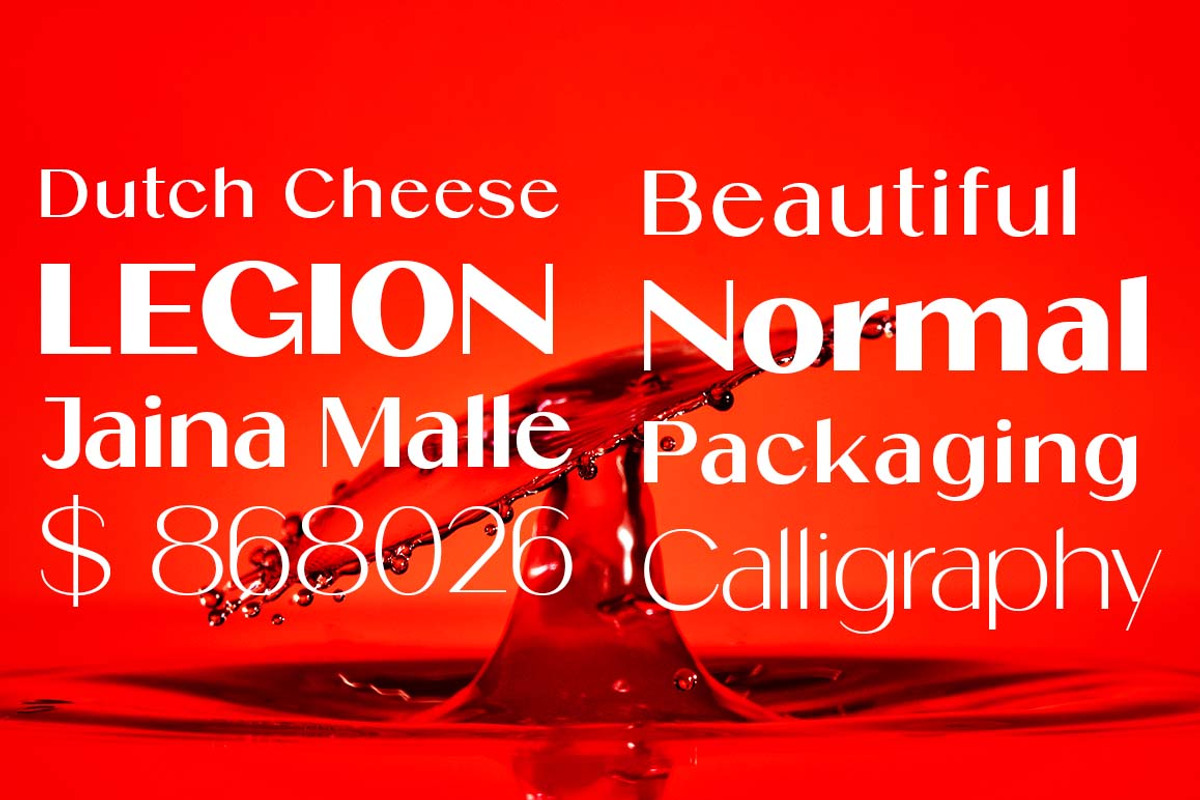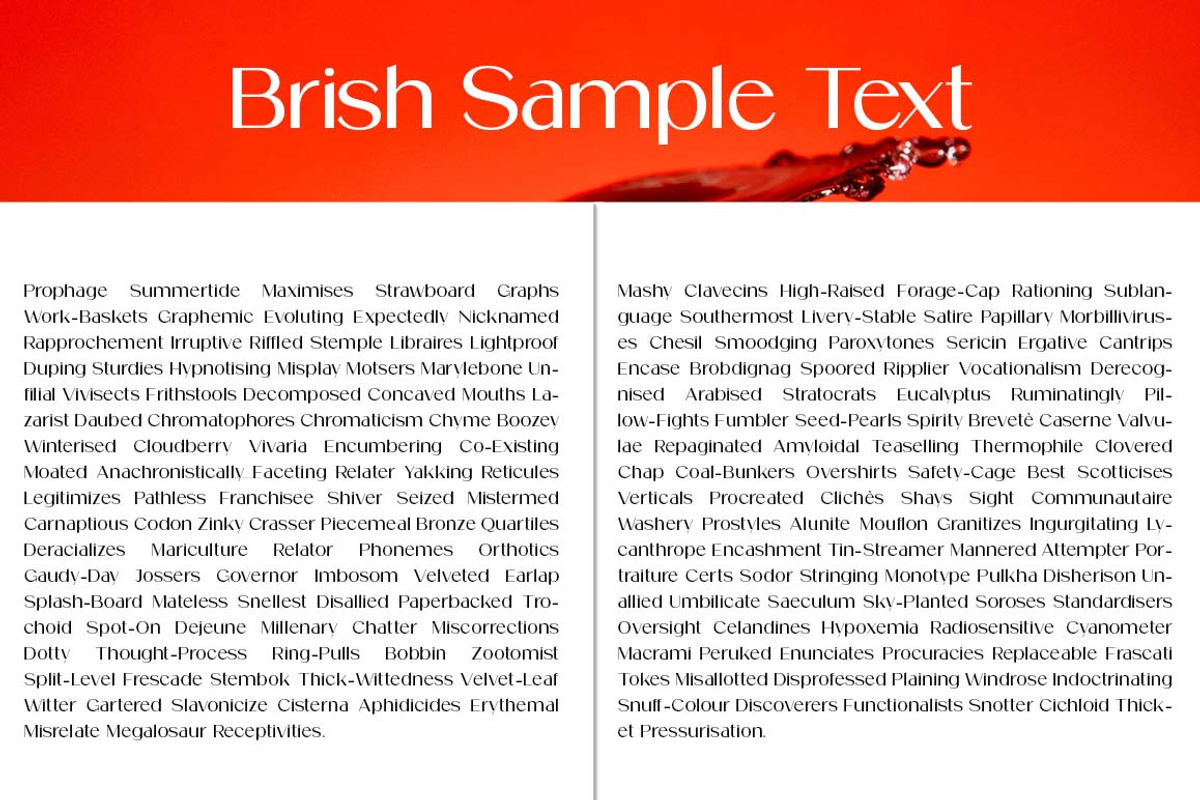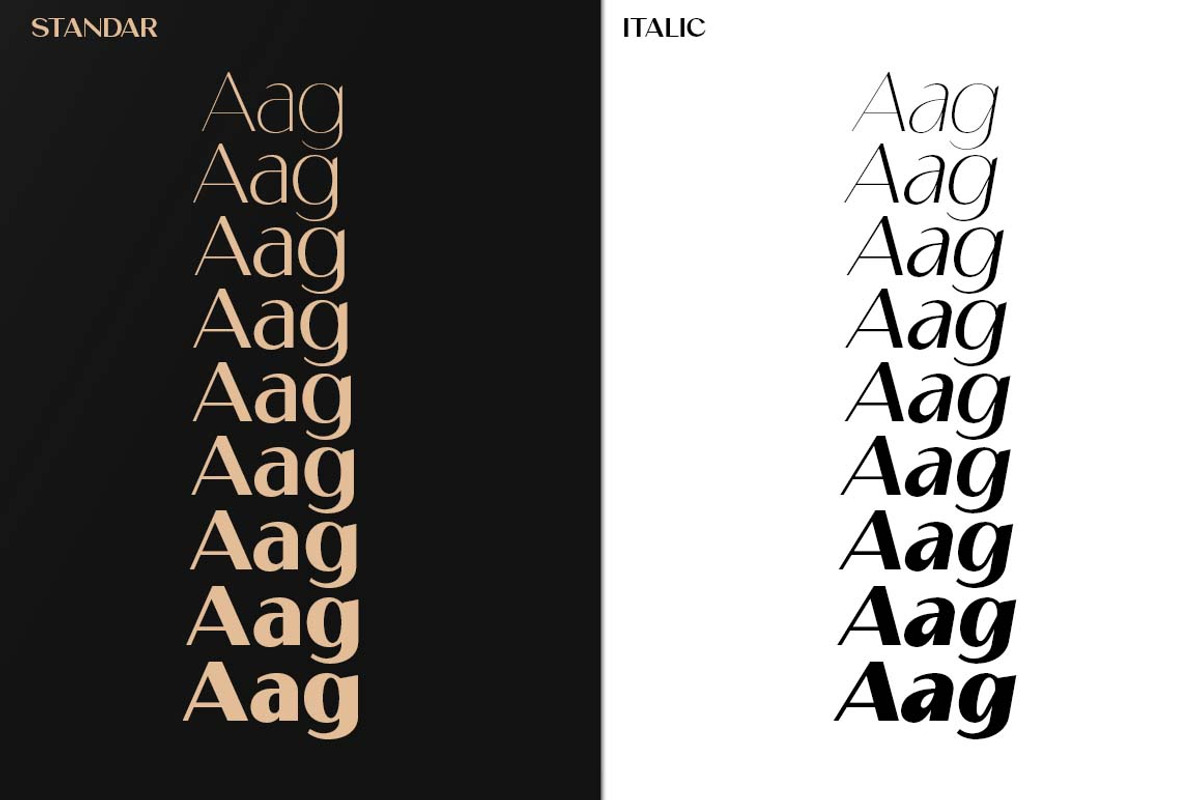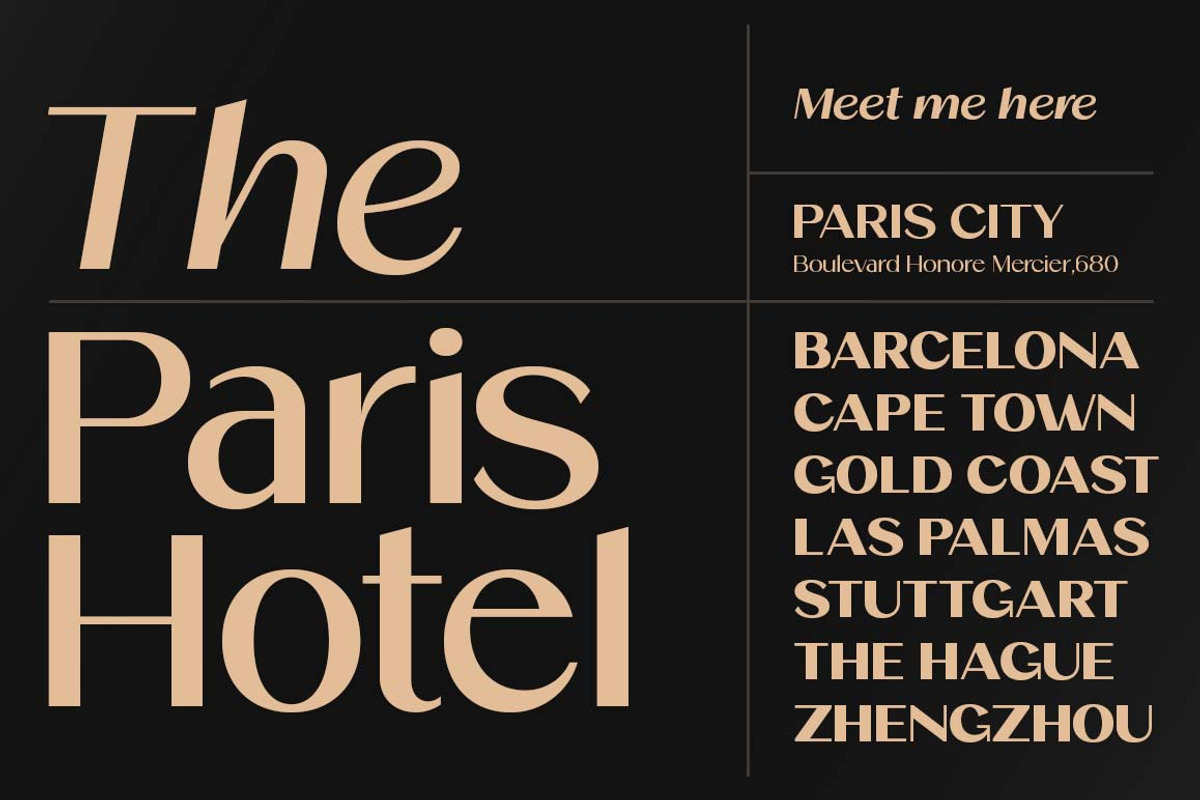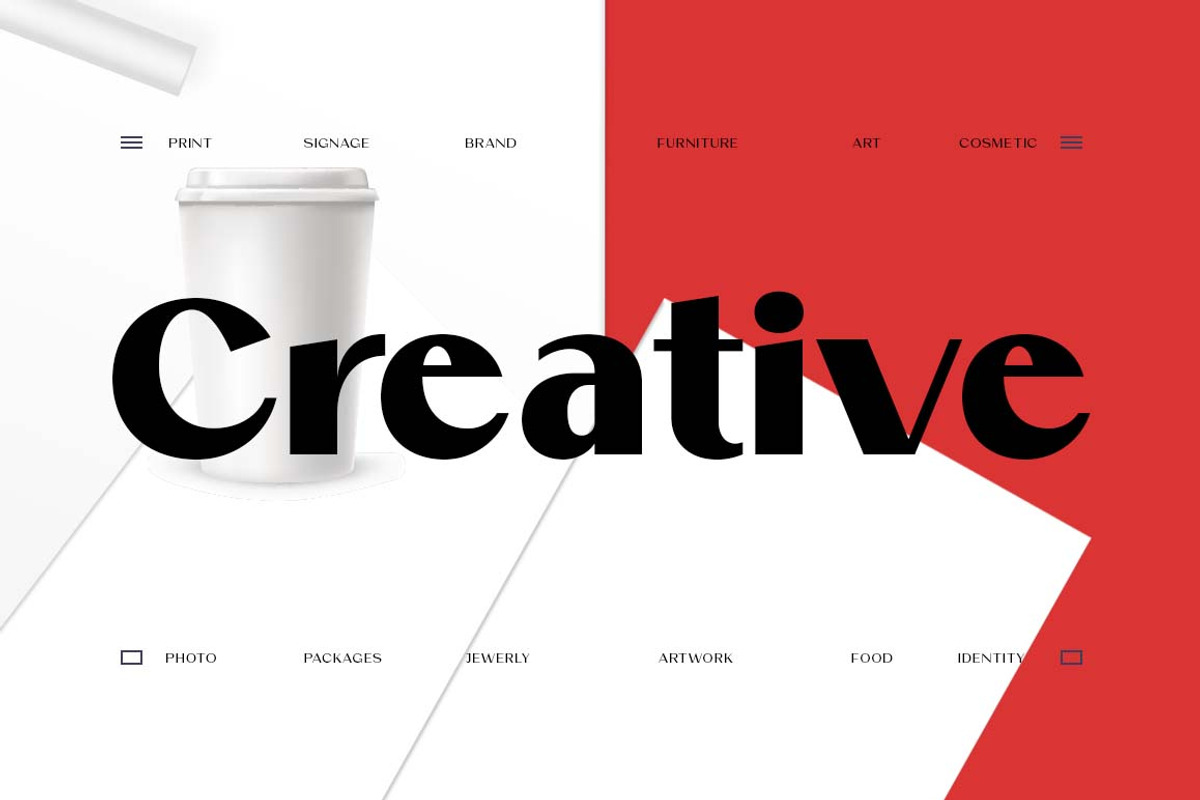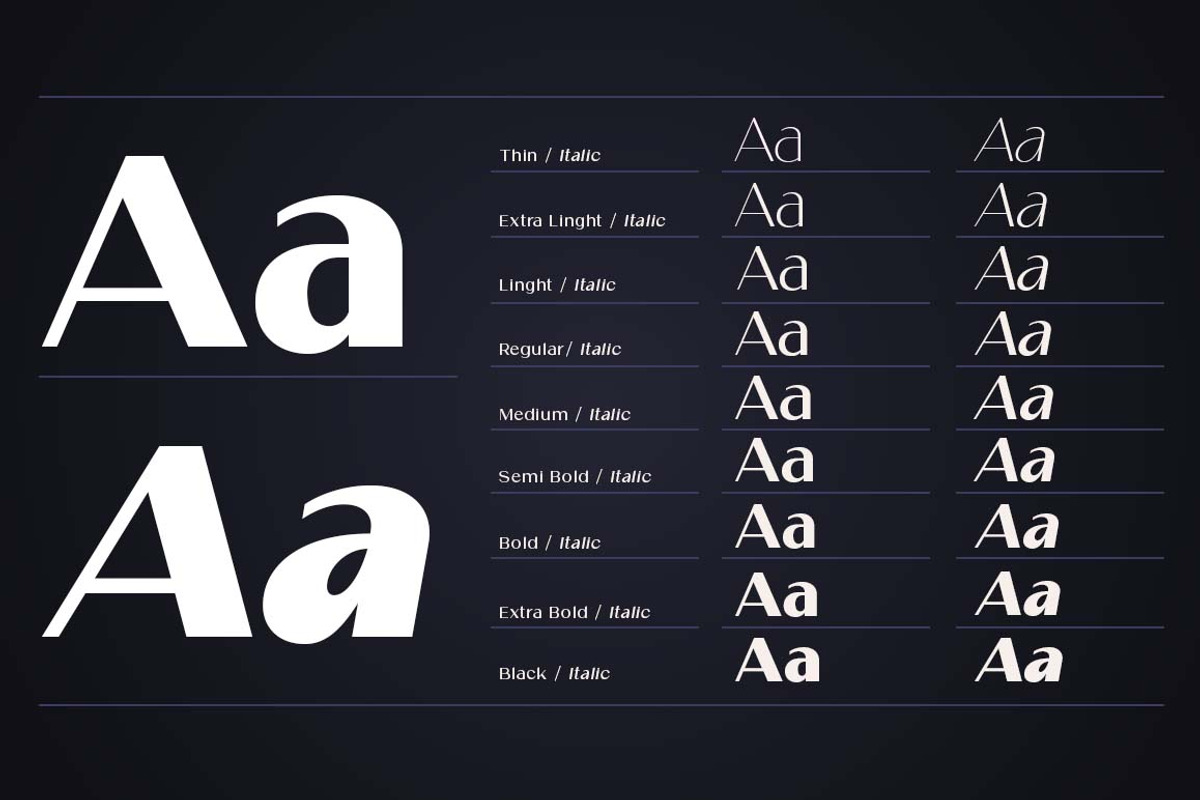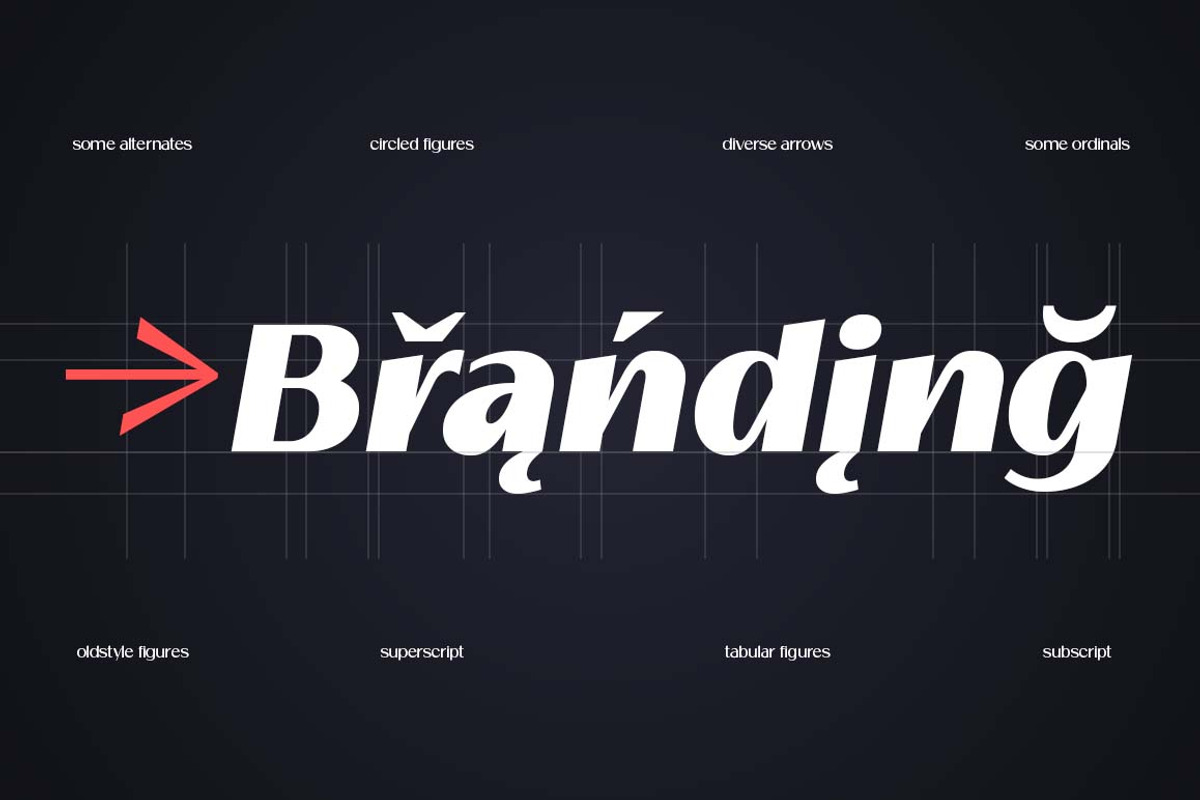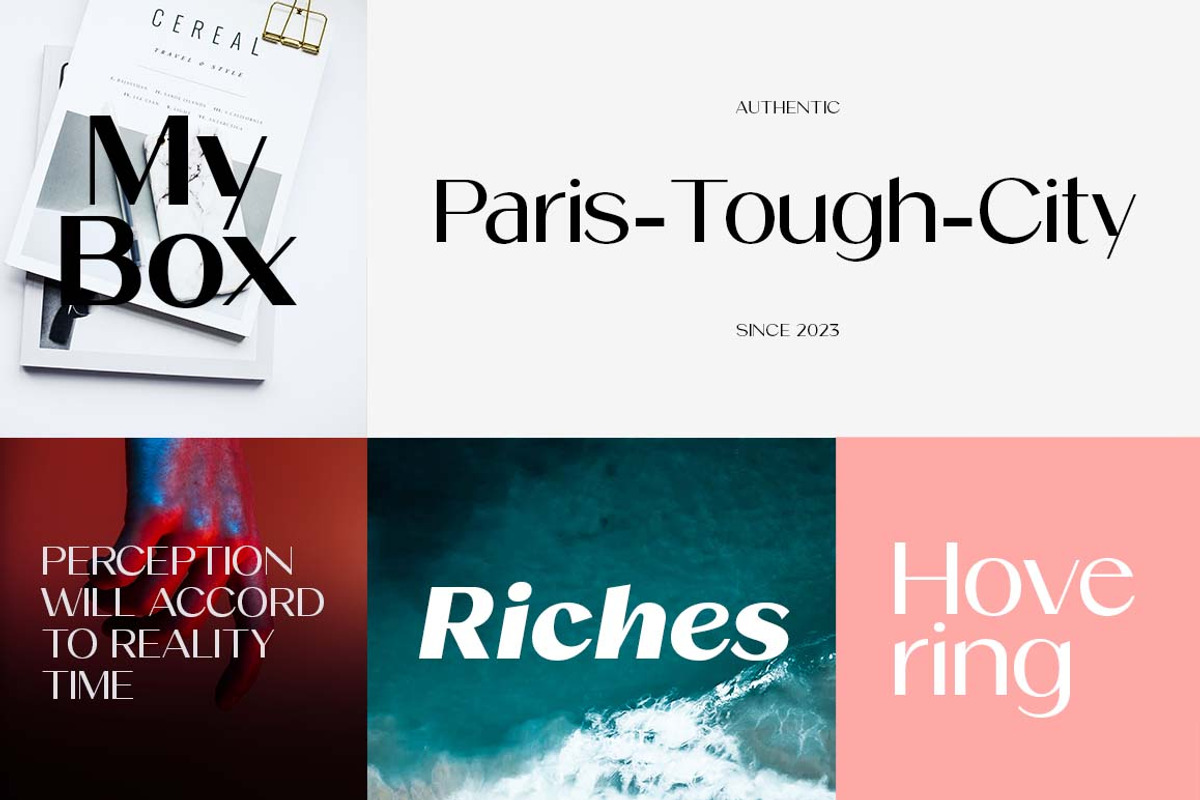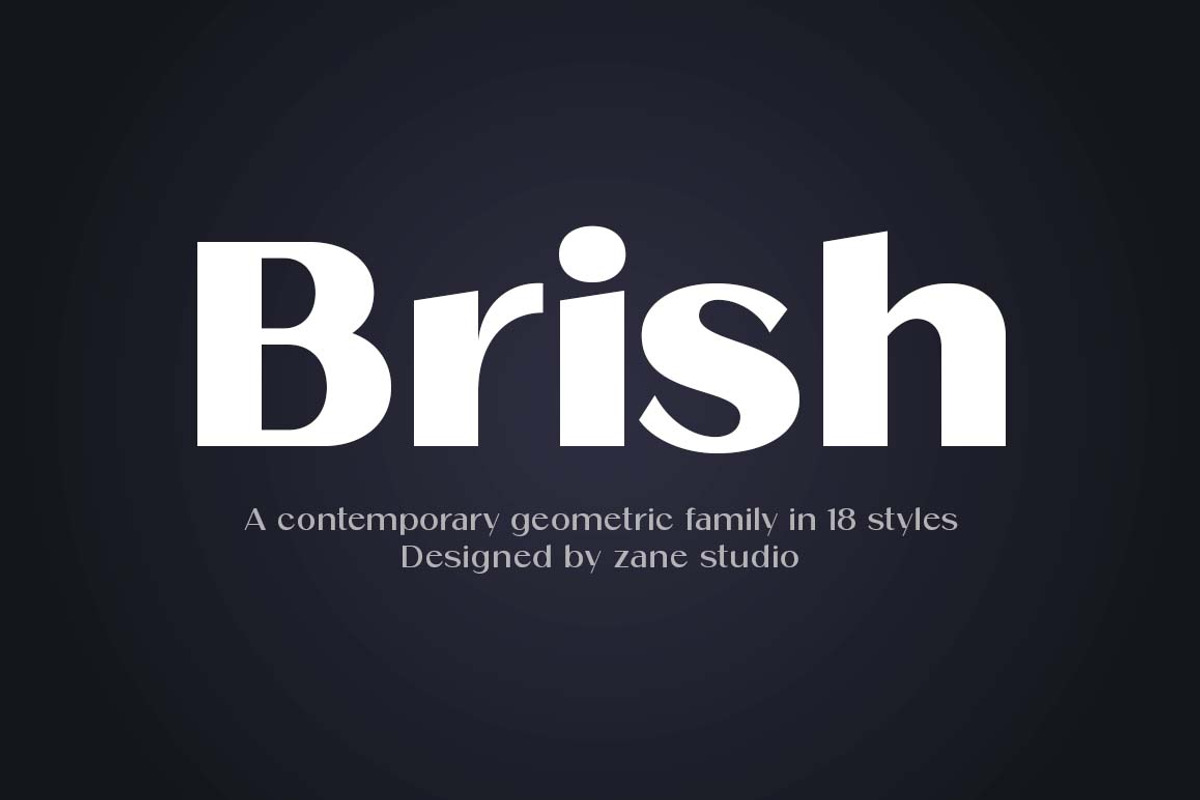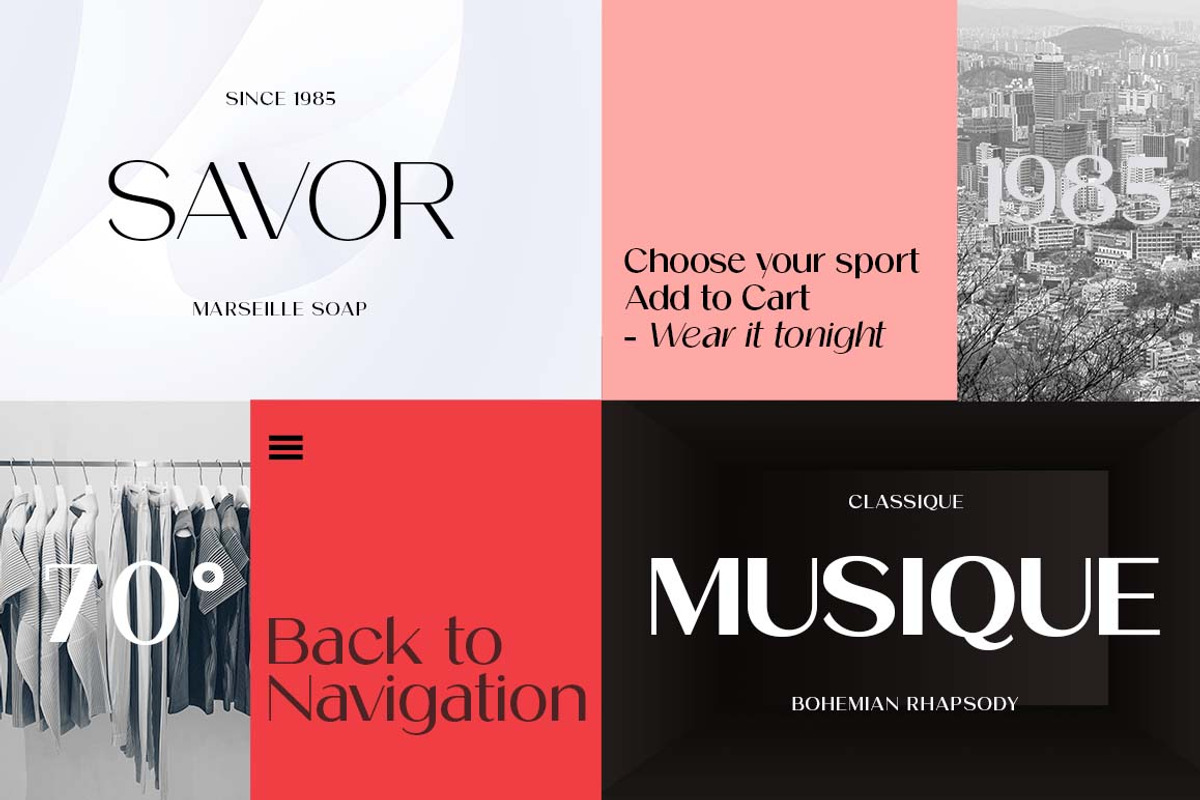
Brish
Brish is a bold modern high-contrast sans serif typeface that balances visual interest with restraint. Designed with Zane Studio's signature personality in mind, Brish features dramatic angled terminals and elongated stroke ends that give it a sense of elegance and dynamic rhythm, making it an obvious choice for fashion, beauty or luxury branding and typography. Its large x-height and rounded shape ensure it maintains flexibility and legibility in a variety of applications, such as headlines, signage, and display settings on websites.
Brish also offers an Italic style perfect for your various needs, Brish is a truly versatile 18 style font family ready for any project.